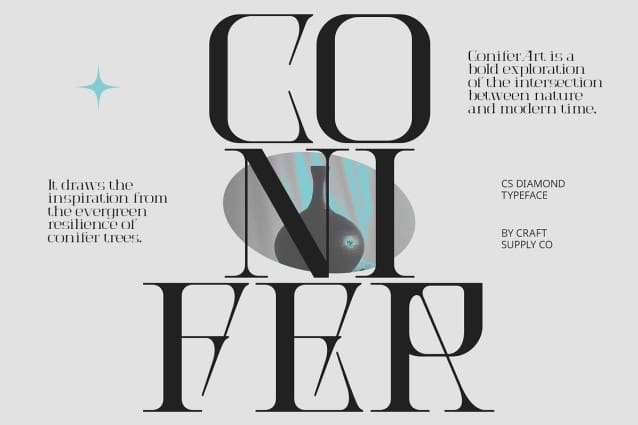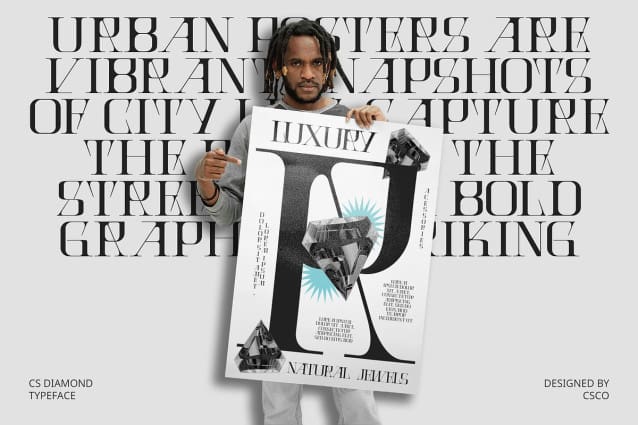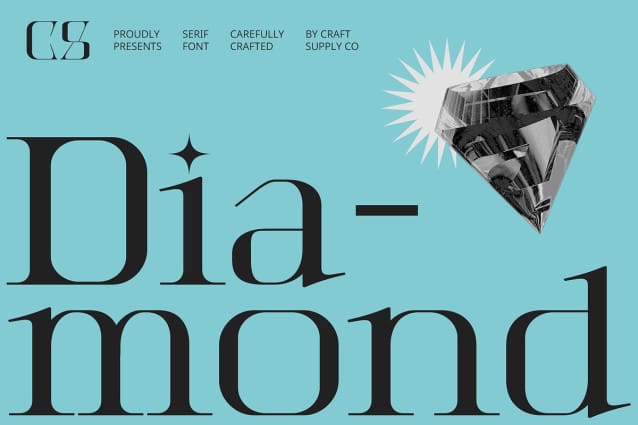
CS Diamond Font
CS Diamond Font is a modern serif font that seamlessly blends traditional serif elegance with a contemporary geometric aesthetic. Its design features high contrast and clean, sharp lines, creating a sophisticated look that bridges classic and modern styles.
Professional and Readable Engineered for optimal readability, CS Diamond is perfect for a variety of contemporary applications, including branding, advertising, and web design. Its clear and well-defined letterforms ensure legibility at various sizes, making it an excellent choice for professional contexts where clarity and impact are essential.
Versatile and Sophisticated CS Diamond’s versatility makes it suitable for a wide range of design projects. From high-end brand identities to sleek marketing materials, its blend of traditional elegance and modern aesthetics adds a touch of sophistication to any visual communication. Whether you’re crafting a polished corporate presence or an eye-catching ad campaign, CS Diamond delivers a striking, professional appearance that stands out.